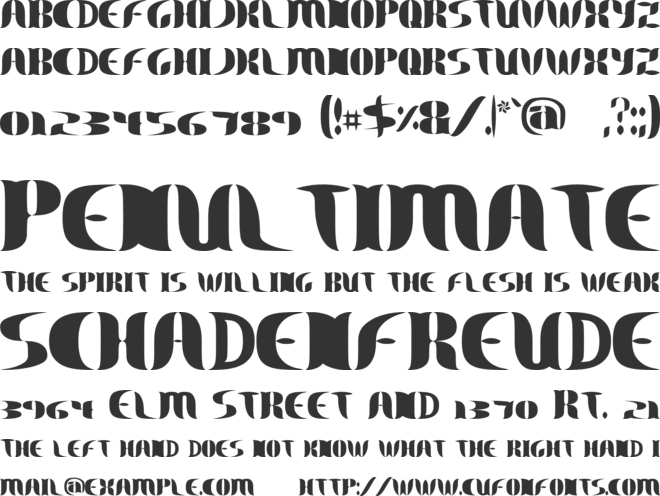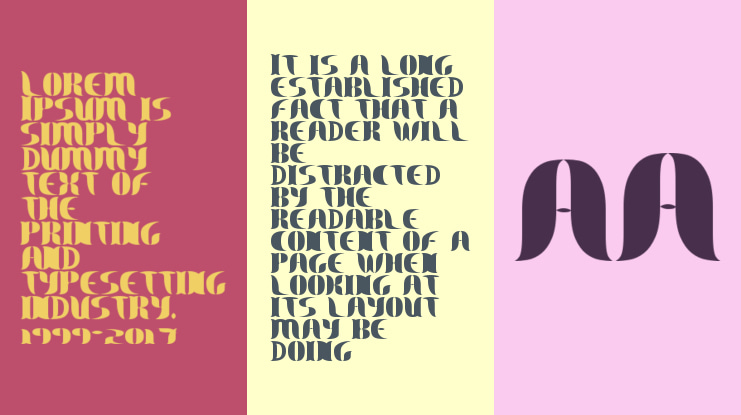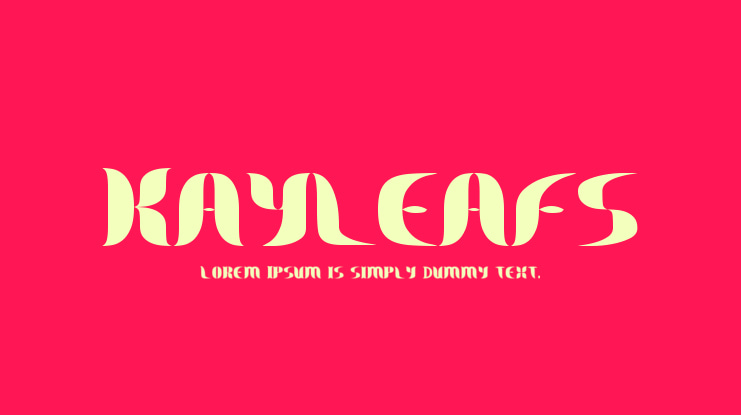
Kayleafs Font
This all started when I wanted to make one of my characters, named Kayla, her own K symbol that also reflected her leaf motif. Once I finished the K, I wondered if I could make a whole font with the same shapes. That was a mistake, because I spent hours working on this before I finally got sick of Adobe Illustrator. Oops.
The lowercase letters are just small caps that are only a smidgimeter smaller than the true caps.